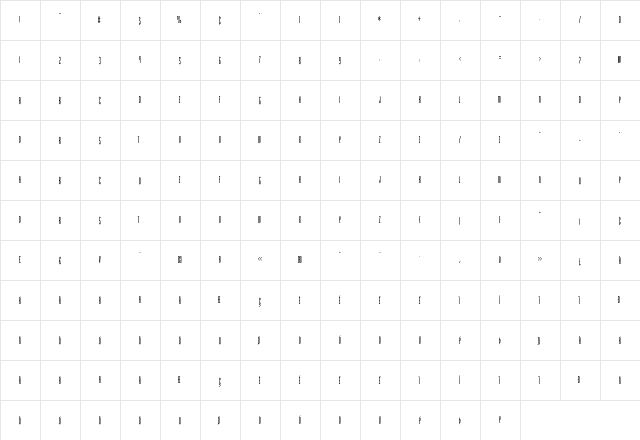
MacroscopicE Medium
Design Context for MacroscopicE Typeface
MacroscopicE is a composed and adaptable typeface that performs quietly and consistently across a wide range of design contexts.